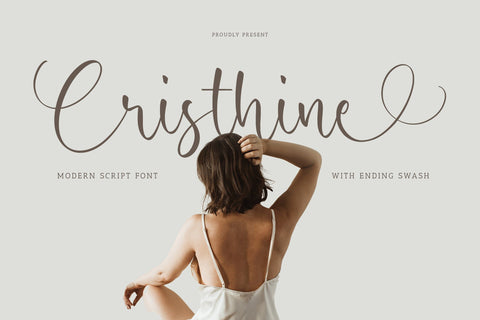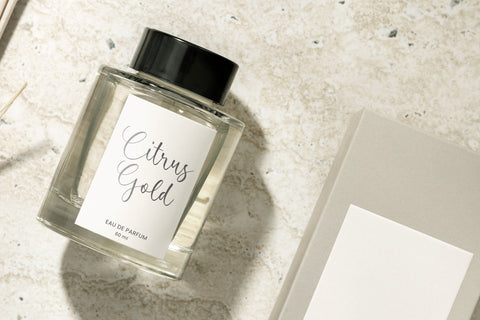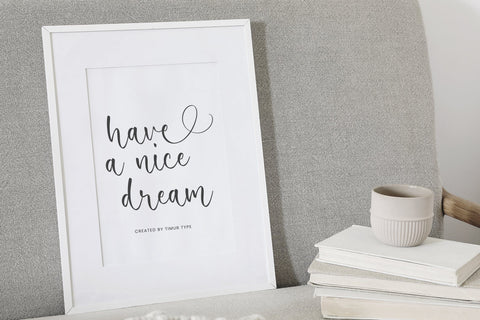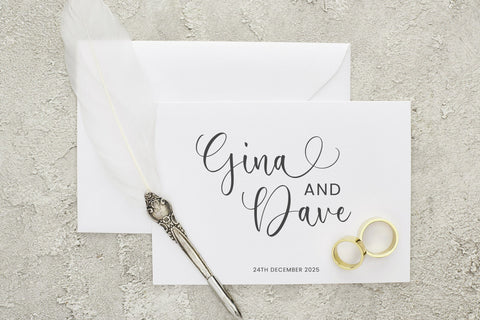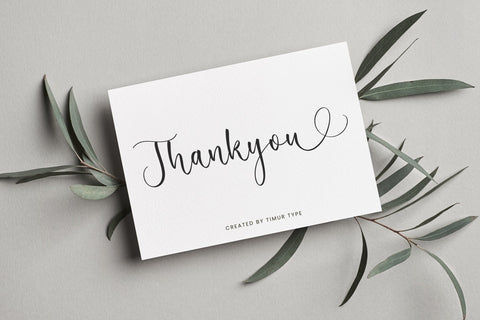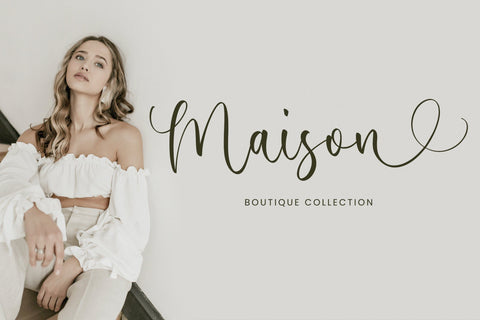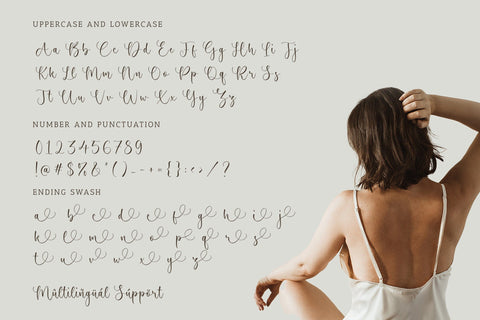
Cristhine - Moderen Script font
Proudly Present, Cristhine
Cristhine - Moderen Script font , which was created with great care and specially created for you
Cristhine is perfect for product packaging, branding project, megazine, social media, wedding, or just used to express words above the background.
– multilingual support.